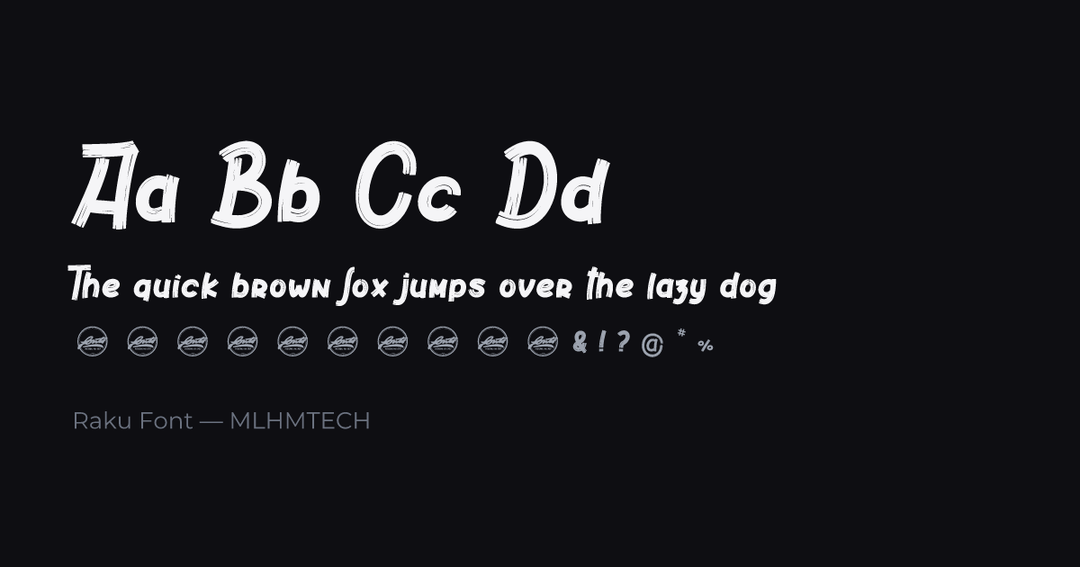
Raku Font
Raku is a distinctive handwritten script font that adds a personal, artistic touch to your designs. Perfect for titles, logos, and creative projects.
Raku is a unique handwritten script font that brings a raw, artistic feel to any project. Its irregular strokes and natural flow make it ideal for adding a personal touch to video titles, social media graphics, and branding.
Whether you're creating a logo, a poster, or a video intro, Raku will help your text stand out with its authentic hand-drawn character.